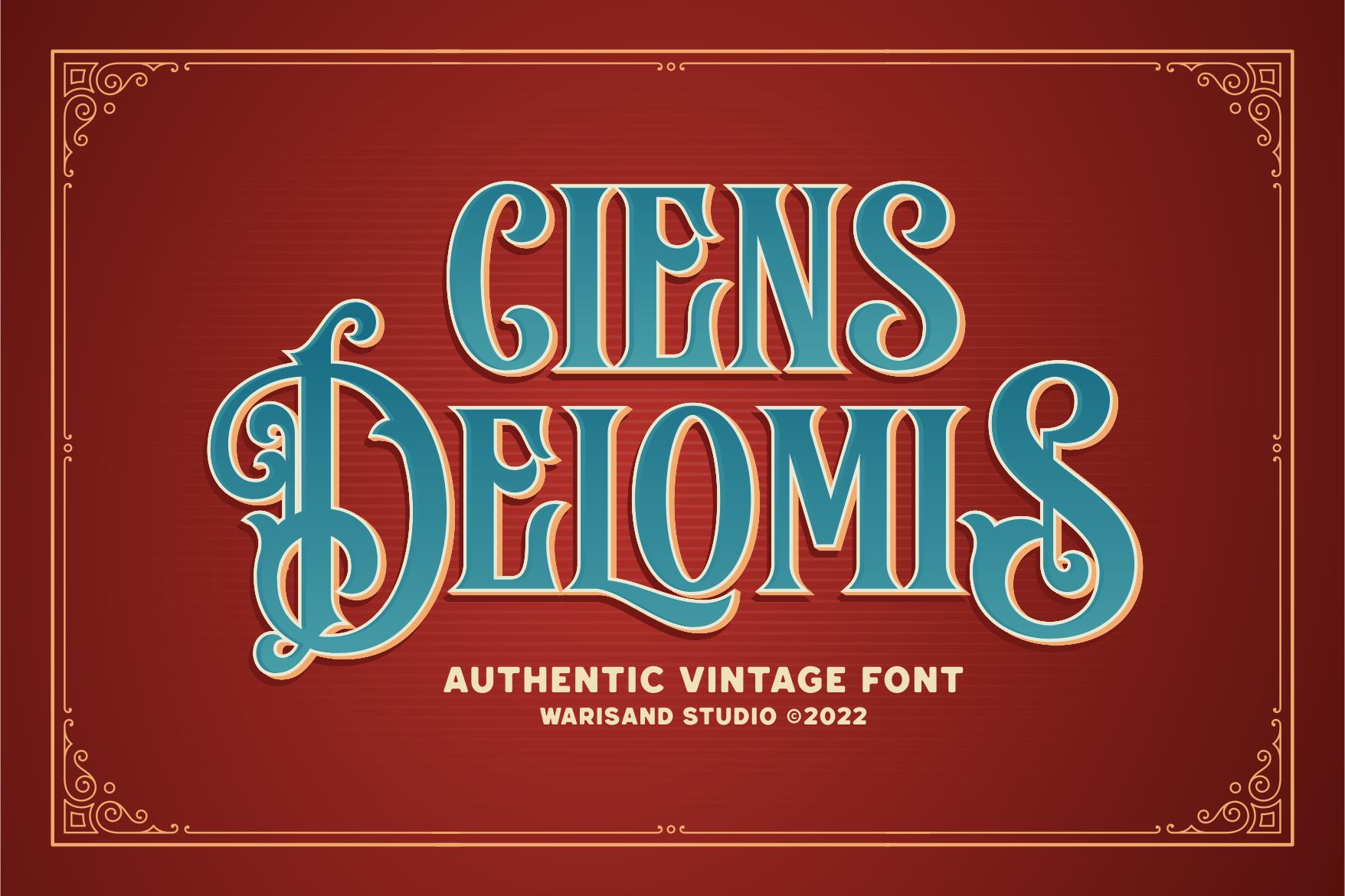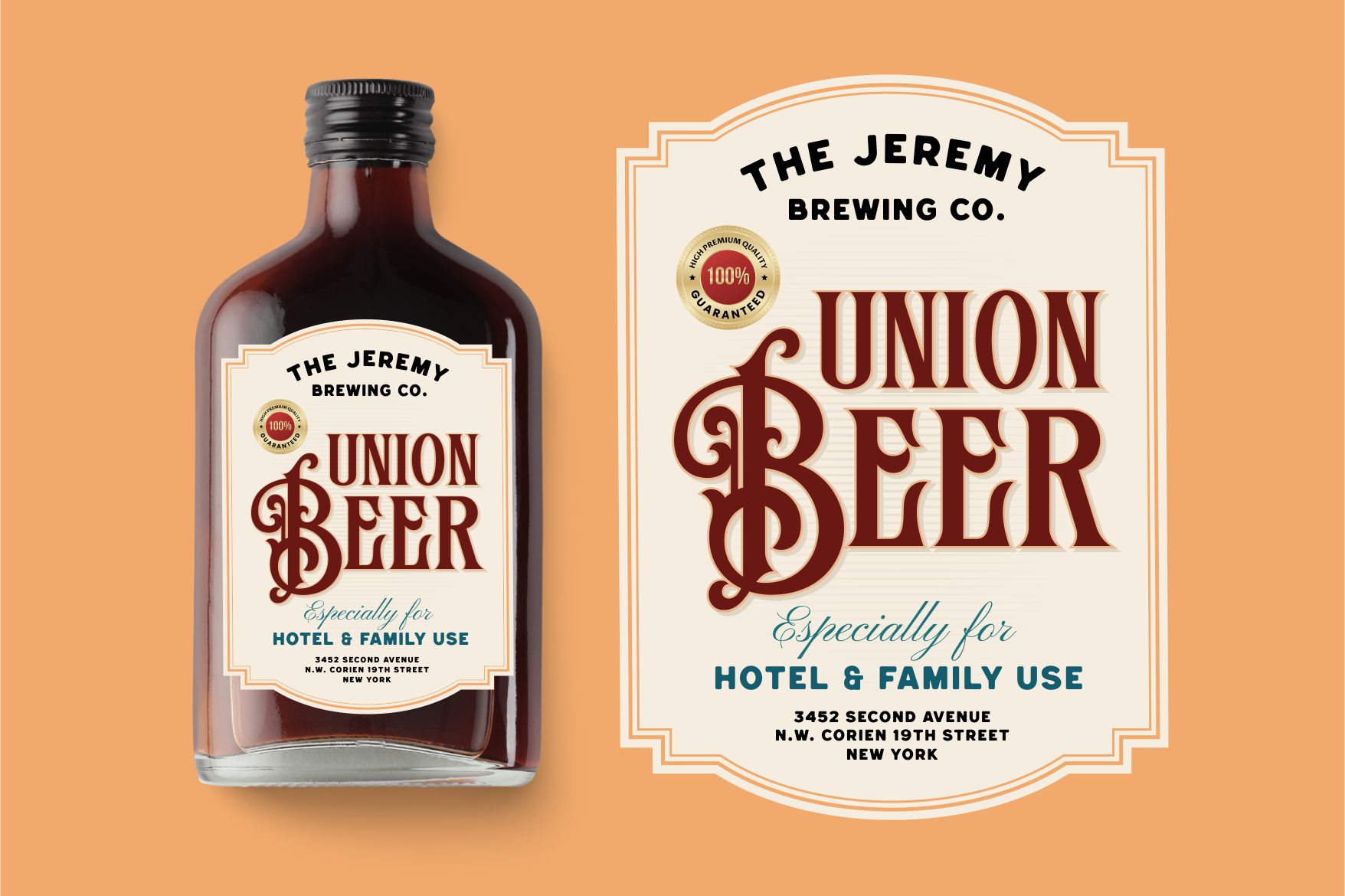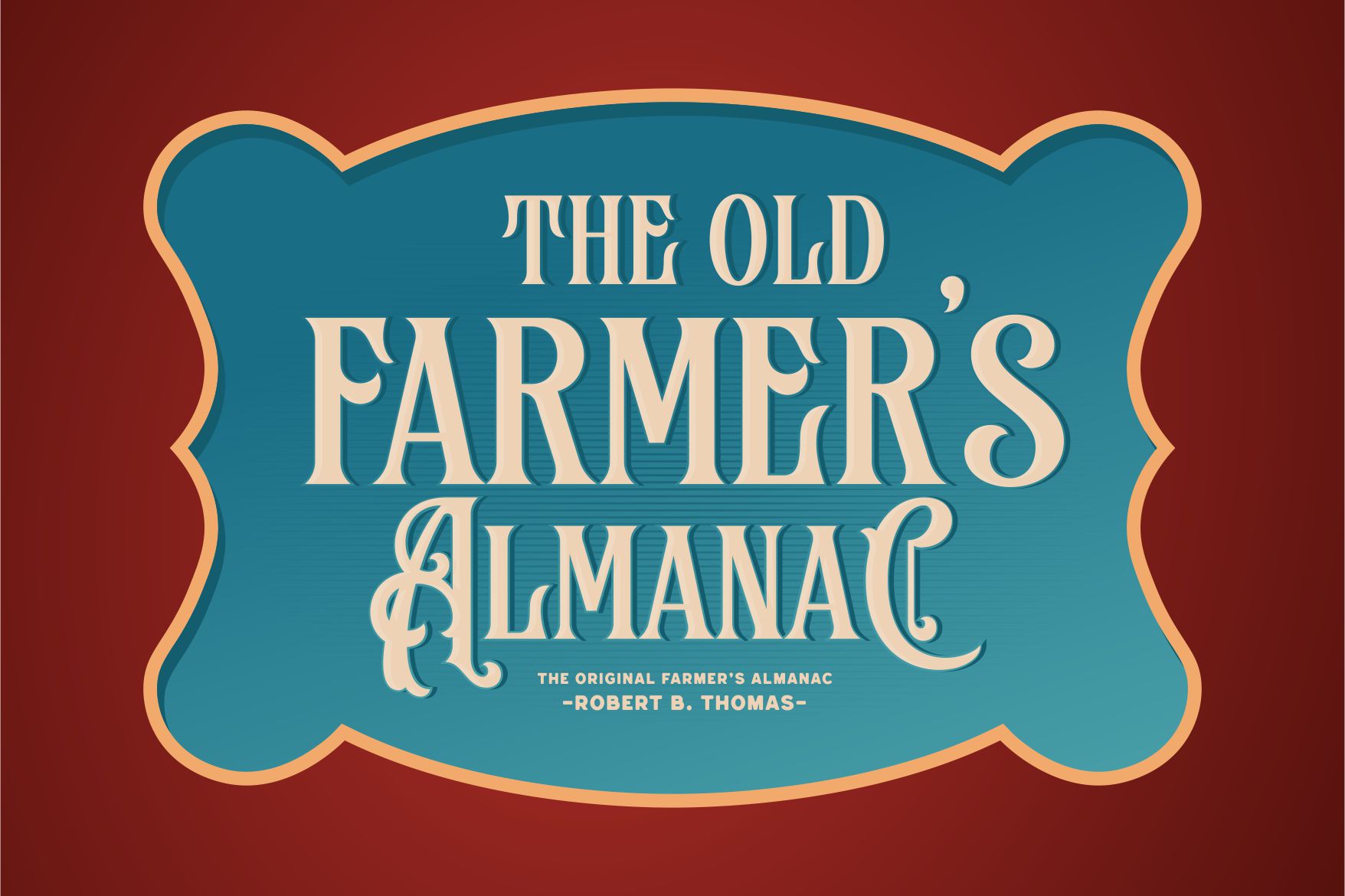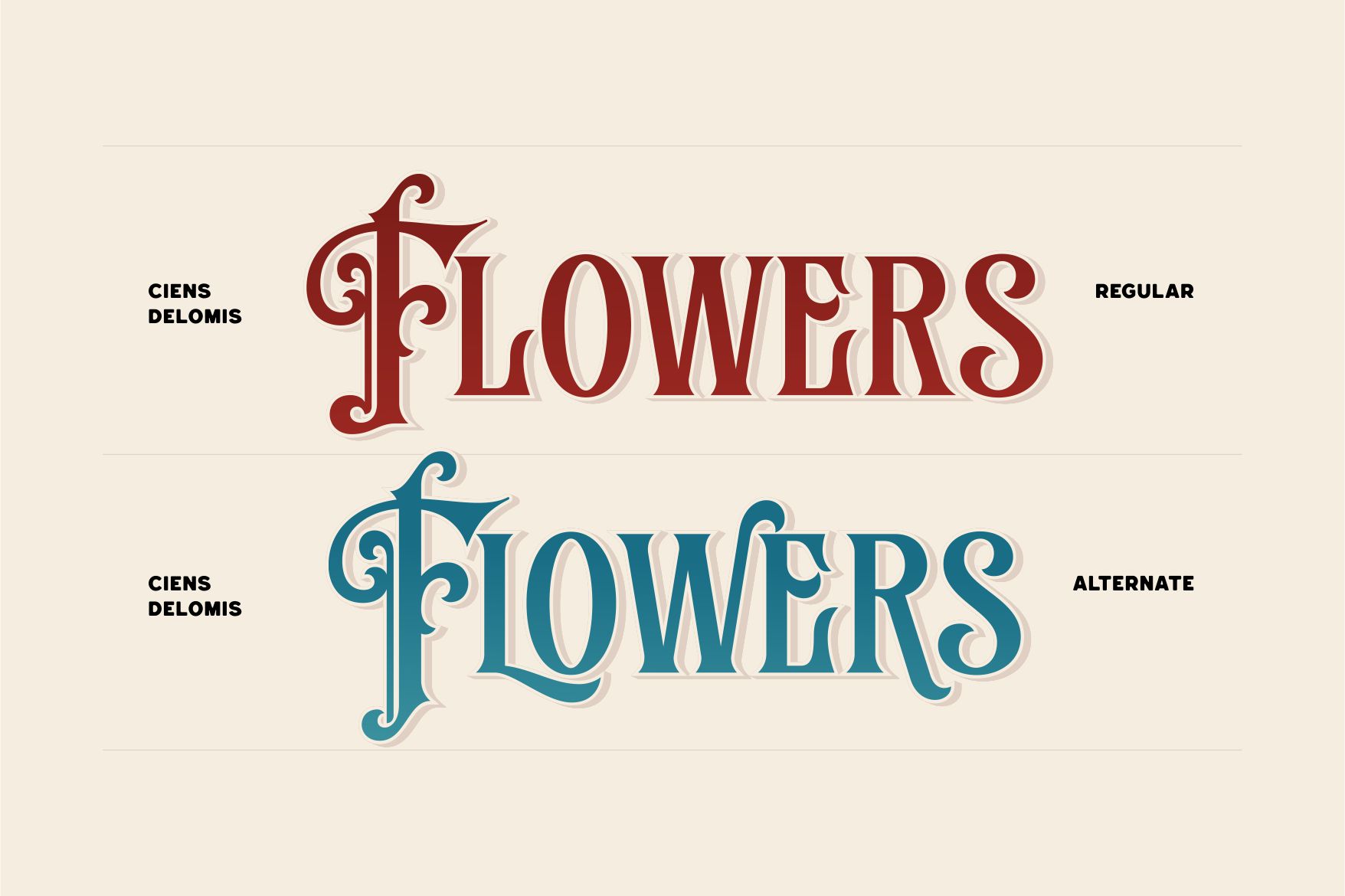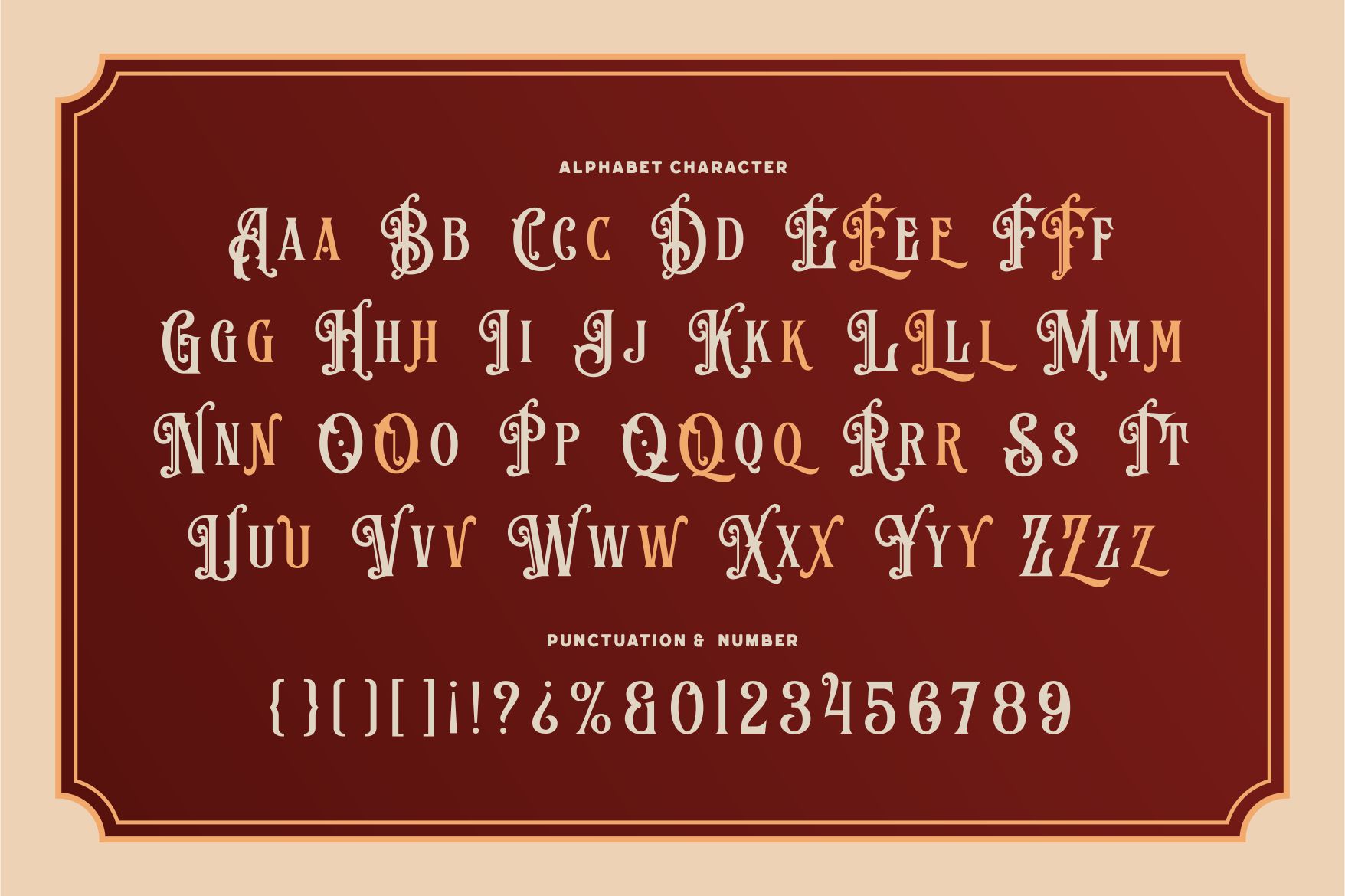
Ciens Delomis
Ciens Delomis is an authentic vintage display font that radiates a bold and ornamental presence. With strong Victorian influences and elegant swashes, this font delivers a high-impact visual style, perfect for classic signage, labels, logos, and packaging. Its unique character alternates provide design flexibility that adds charm and depth to every composition.
Ideal for branding beer bottles, old-fashioned almanacs, boutique products, and editorial headlines, Ciens Delomis captures the soul of retro typography. The font includes a full character set with multilingual support, numbers, punctuation, and decorative alternates, giving designers the tools to create both striking titles and stylish vintage layouts.